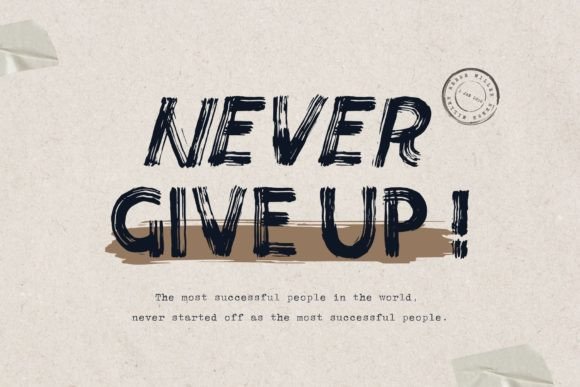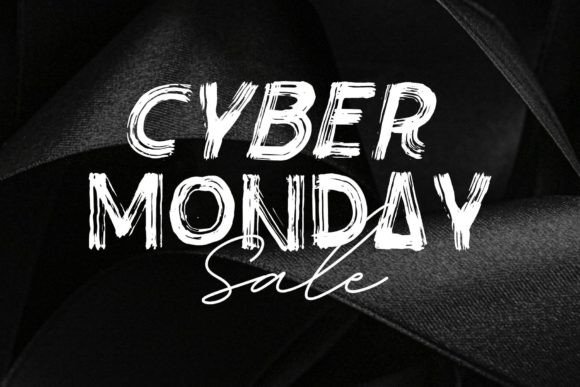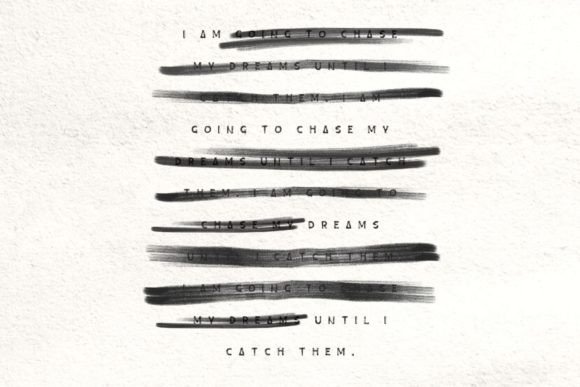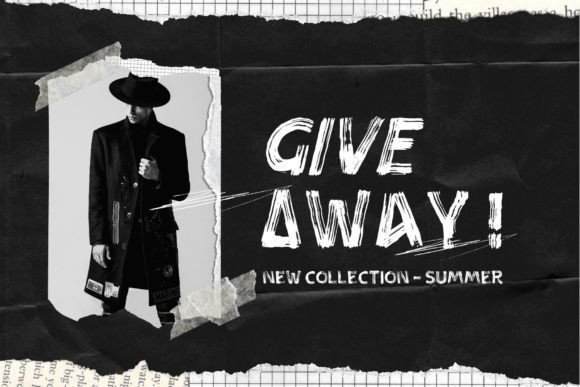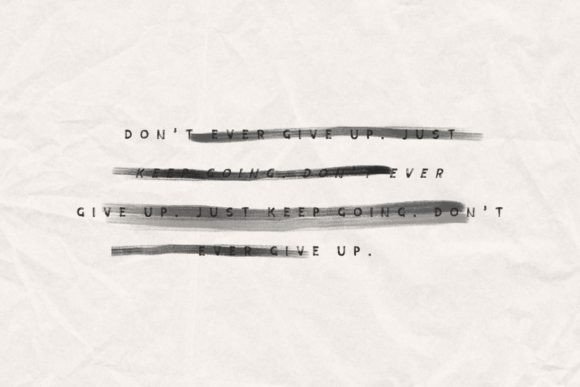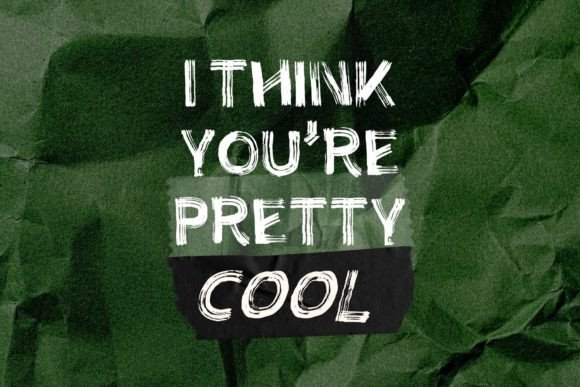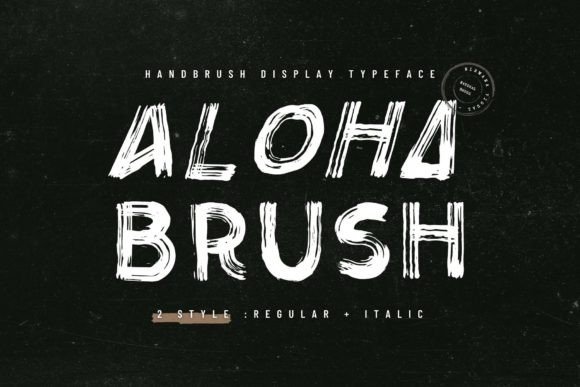
The Ultimate Guide to Aloha Brush Font: Elevate Your Designs with a Modern Twist
I’ll never forget the time I was working on a branding project for a trendy coffee shop. My client wanted a font that was both modern and playful, but I was struggling to find the perfect fit. That’s when I stumbled upon Aloha Brush Font, and it instantly became the star of the show! With its cool, urban vibe and incredibly versatile design, this font has become a staple in my design toolkit. In this article, I’ll share my love for Aloha Brush Font, its features, and how to make the most of it in your creative projects.
Aloha Brush Font: The Perfect Blend of Style and Versatility
Aloha Brush Font is a cool and trendy brush display font that’s perfect for designers, crafters, and creative hobbyists. Its modern, urban vibe makes it suitable for a wide range of projects, from branding and advertising to packaging and social media graphics.
- 💥 Unique, hand-brushed texture that adds a touch of personality to any design
- ✅ Highly versatile and adaptable to different styles and themes
- 🎨 Wide range of OpenType features, glyphs, and stylistic alternates to experiment with
- 👍 Easy to read and understand, even in smaller sizes
- ⚠️ Some users might find the font a bit too bold or overpowering for certain designs
- 🤔 Limited suitability for body text or long-form content due to its display font nature
The Story Behind Aloha Brush Font
Aloha Brush Font was designed with the intention of capturing the carefree, laid-back spirit of the Hawaiian islands. The designer aimed to create a font that would evoke feelings of warmth, friendliness, and approachability. With its unique blend of modern style and hand-brushed texture, Aloha Brush Font has become a popular choice among designers and creatives.
| Font Name | Aloha Brush Font |
| Author | Sigit Dwipa |
Aloha Brush Font is perfect for a wide range of creative projects, including branding, advertising, packaging, social media graphics, and more.
While Aloha Brush Font is a beautiful display font, it’s not ideal for body text or long-form content due to its bold, attention-grabbing nature.
Yes, Aloha Brush Font features a range of OpenType features, glyphs, and stylistic alternates to help you experiment and customize your designs.